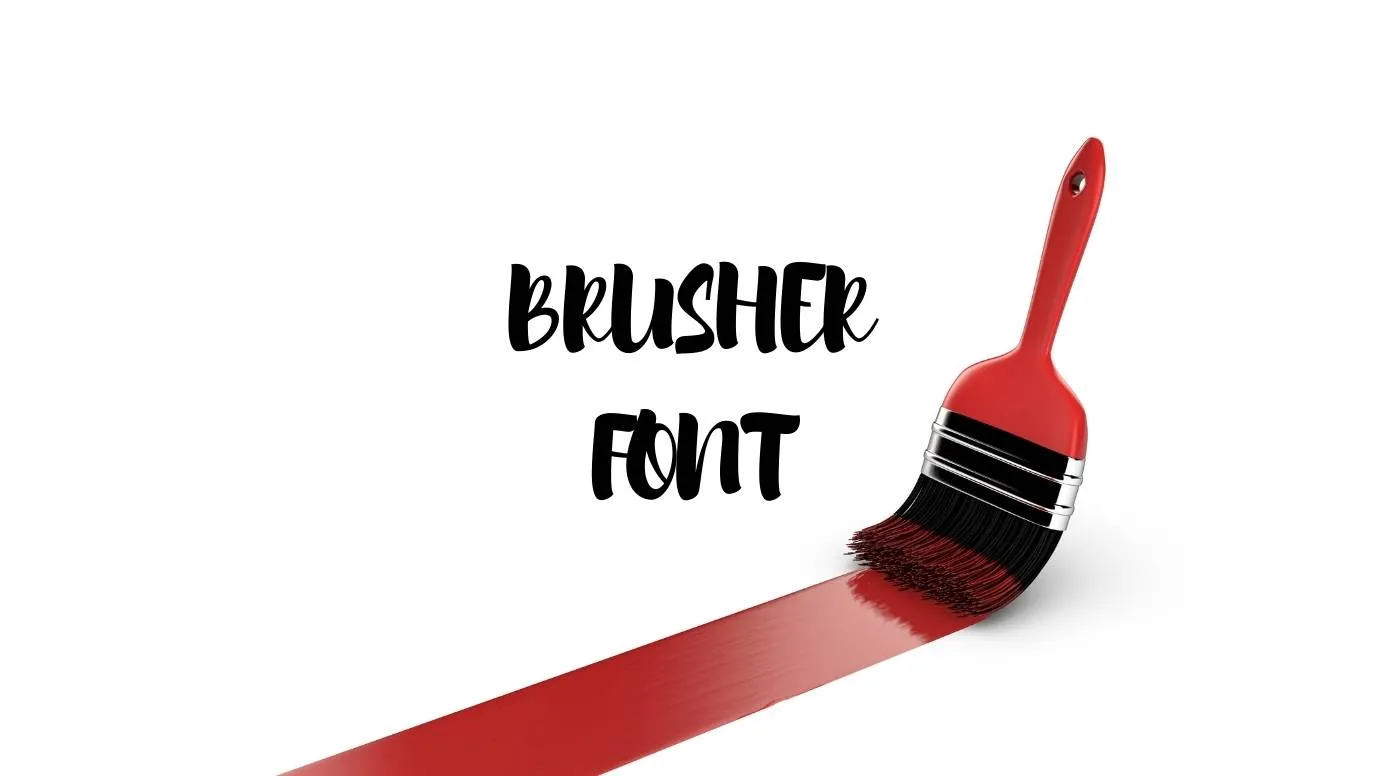
Brusher Font Family Free Download
Brusher Font Family is an exceptional font featuring stunning brush-painted characters. This incredible font boasts sleek lines and appealing contours. The creator behind this typeface is the Netherlands-based designer Vlad Cristea, who drew inspiration from elegant brushed strokes.
Cristea has enhanced this font for both web and display usage, ensuring it remains legible even in smaller text sizes. The styles of this typeface look very impressive and it grants an individual feel to designs.
NameBrusher Font
DesignerVlad Cristea
StyleBrush